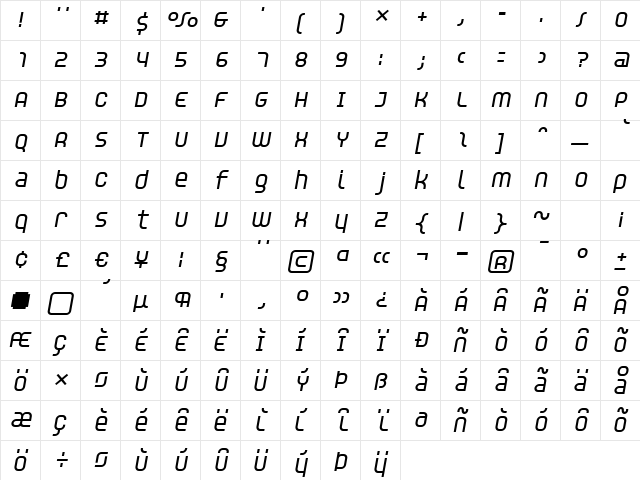
Unisect BoldOblique
| Foundry | YouWorkForThem |
| Designer | Michael Cina |
Design Context for Unisect Typeface
Unisect offers clean, dependable letterforms without strong stylistic allegiance, making it a practical choice for designers who need flexibility. Its italic angle brings a sense of urgency and motion to the letterforms. Its bold stroke weight gives it real presence on the page.